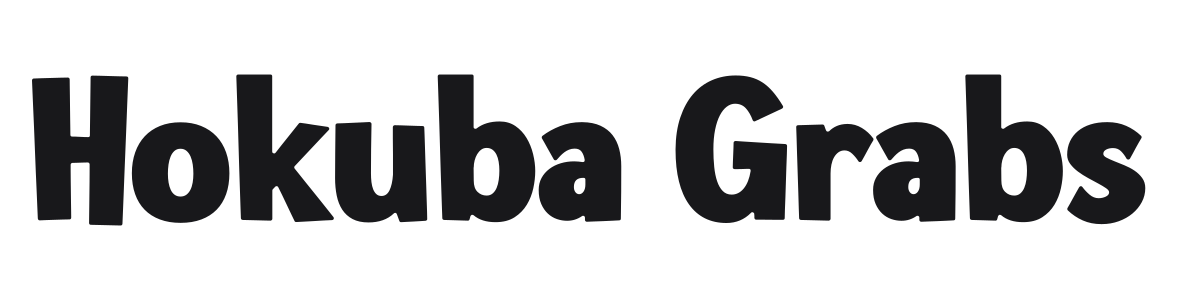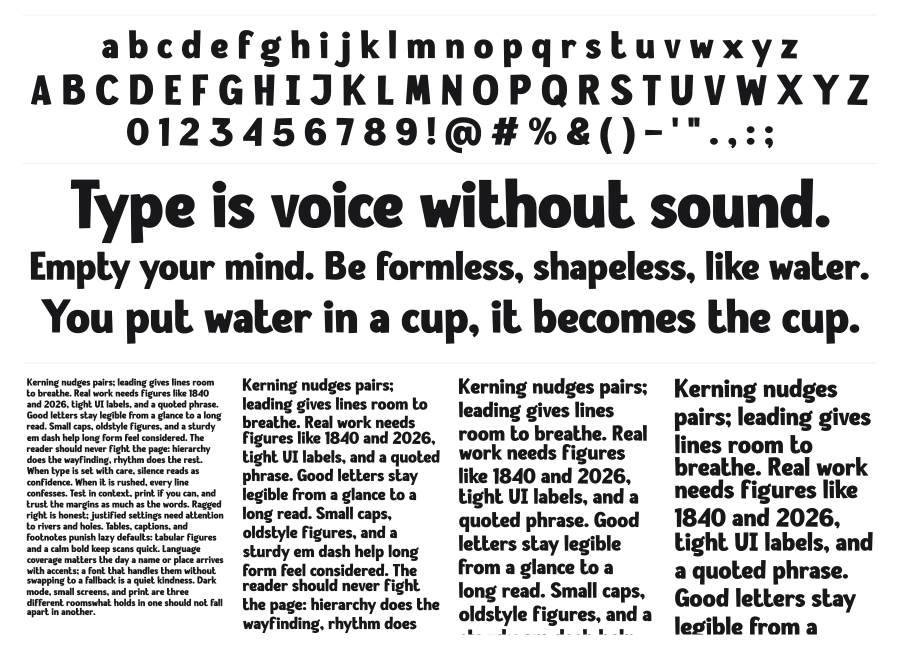
Hokuba Grabs
Hokuba Grabs is a heavy rounded sans with thick strokes, soft terminals, and an unmistakably fun personality. The wide proportions and chunky weight make it pop at headline sizes, lending energy to posters, packaging, and brand identities that want to feel approachable rather than corporate. It carries the kind of bold warmth that works naturally for youth-oriented and consumer-facing design.